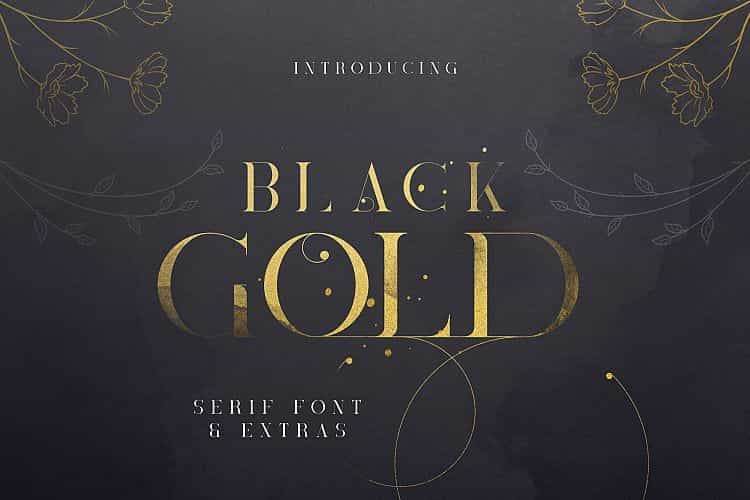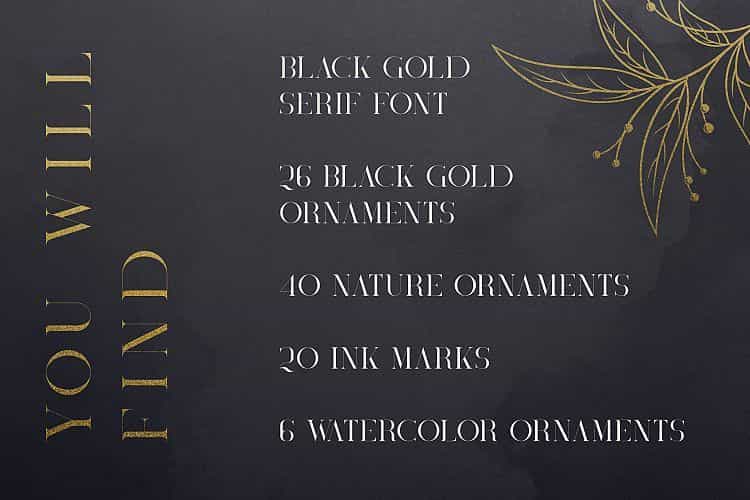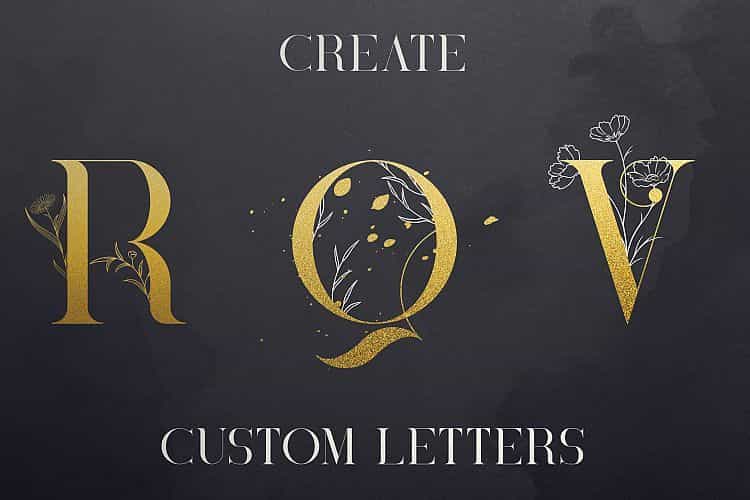
Discover Black Gold Serif Font, part of the Serif Display Gothic Decorative collection—a versatile and unique font perfect for adding a personal touch to your projects. Download it for free and enjoy crafting designs with style, from invitations to social media posts. This font is available exclusively for personal use, giving you the freedom to create without limits. Unlock your creativity with Black Gold Serif Font today!
Thank you for choosing Black Gold Font! The font is displayed as a titling typeface. This font can be used in many design projects from printed materials to logo designs; its simple serifs work great in contemporary design work; while its geometric sleek lines and modern serifs add character.